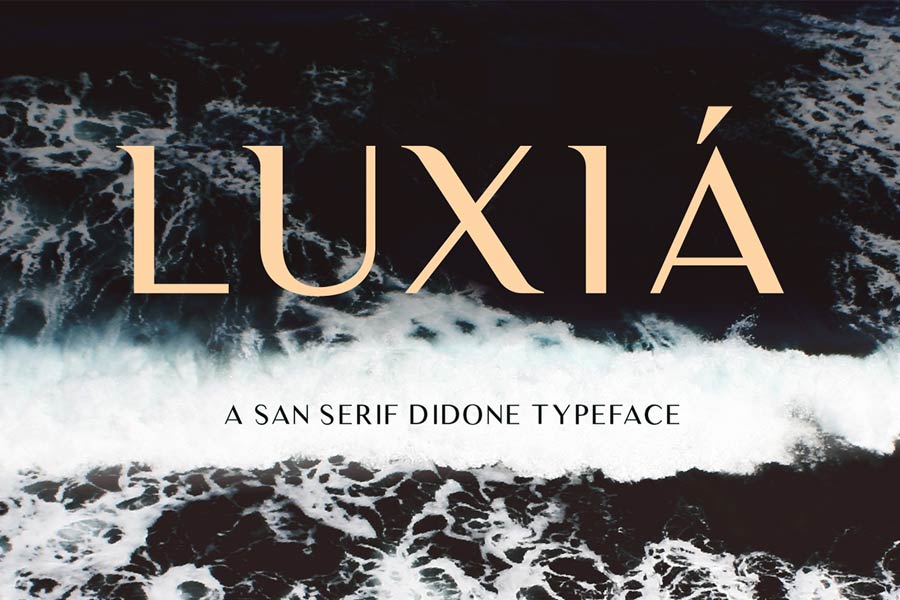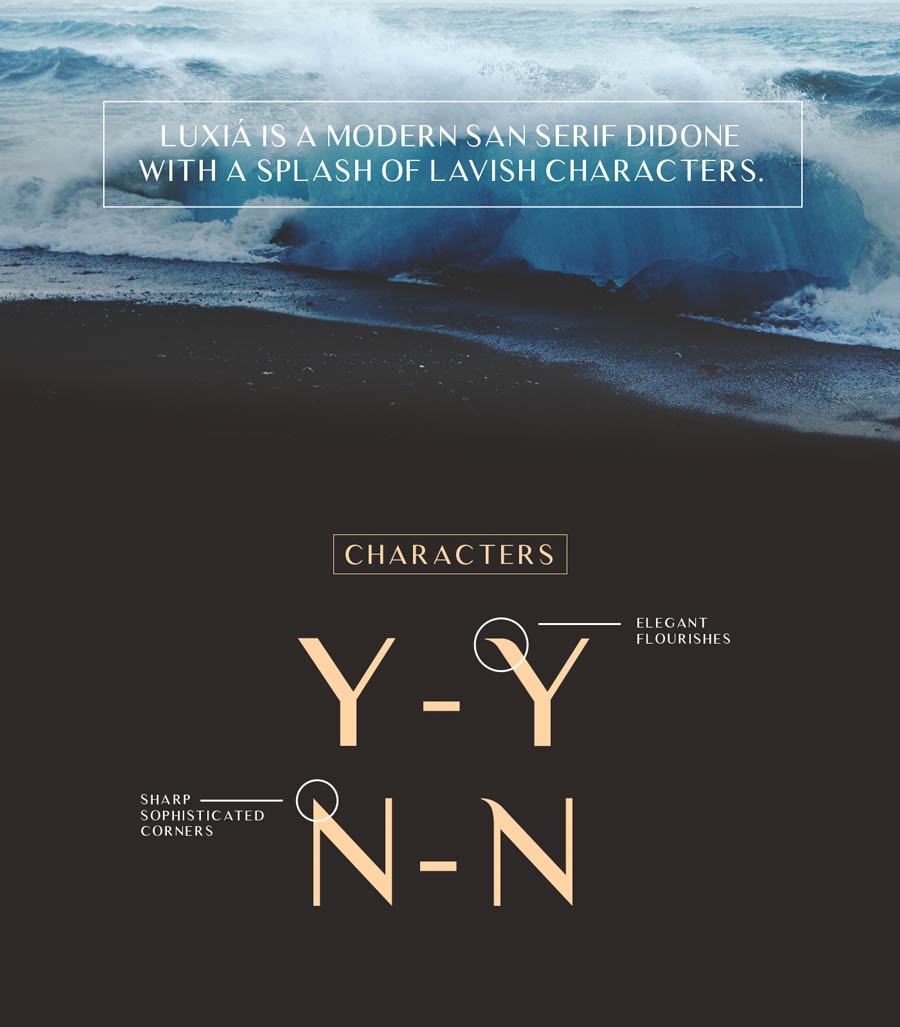
Luxia is a free sans serif didone font with added elegant touch. It has the characteristics of the didone typefaces, therefore giving it a classy look, while the display version of the font has the flourishes on the characters that is just perfect for haute couture designs and logotypes.